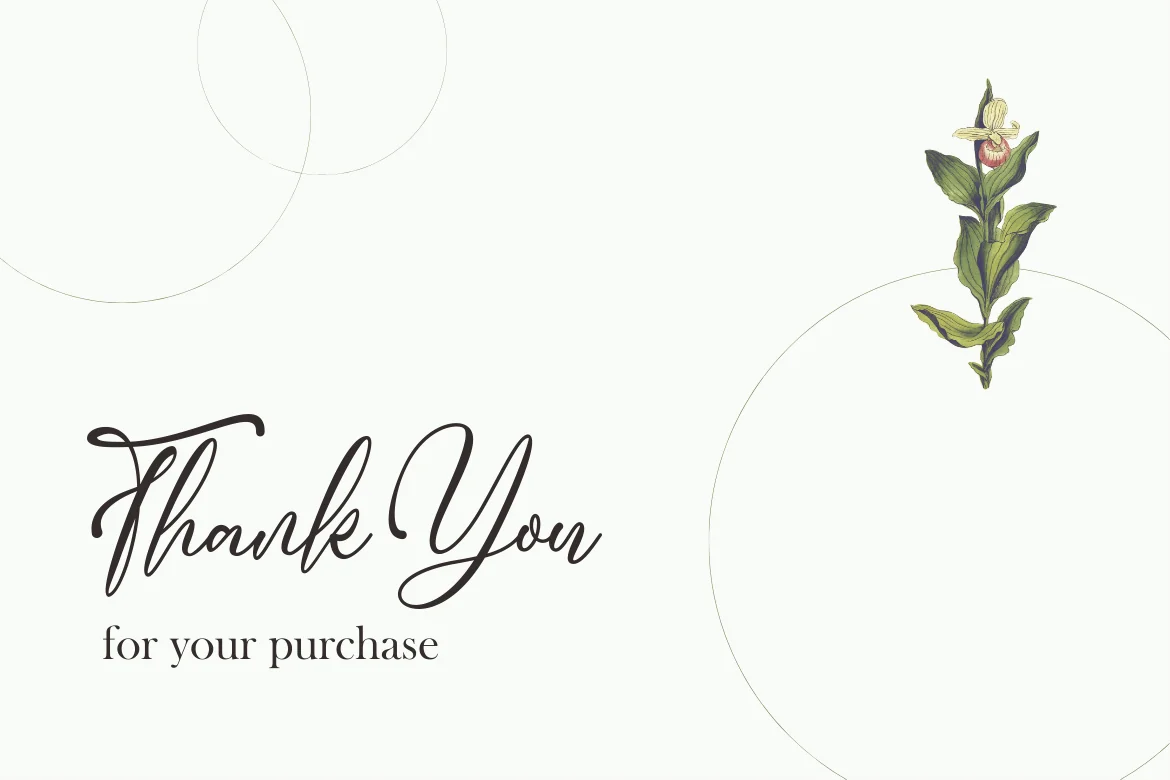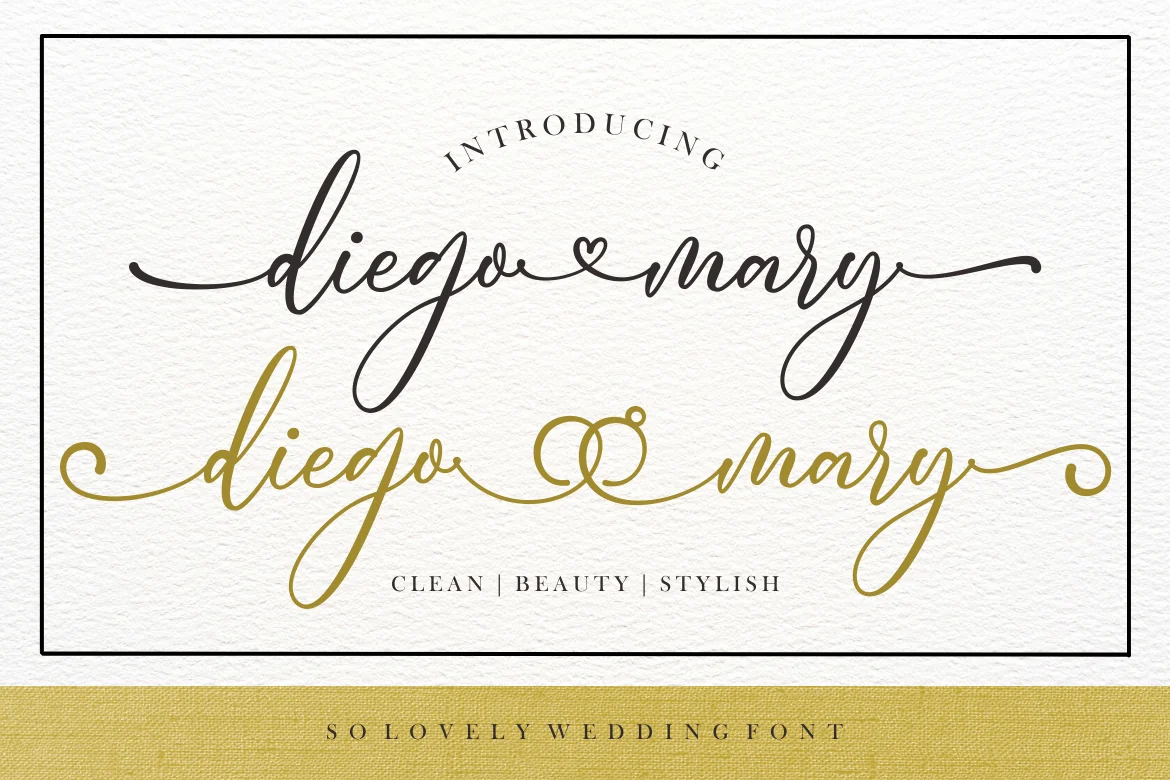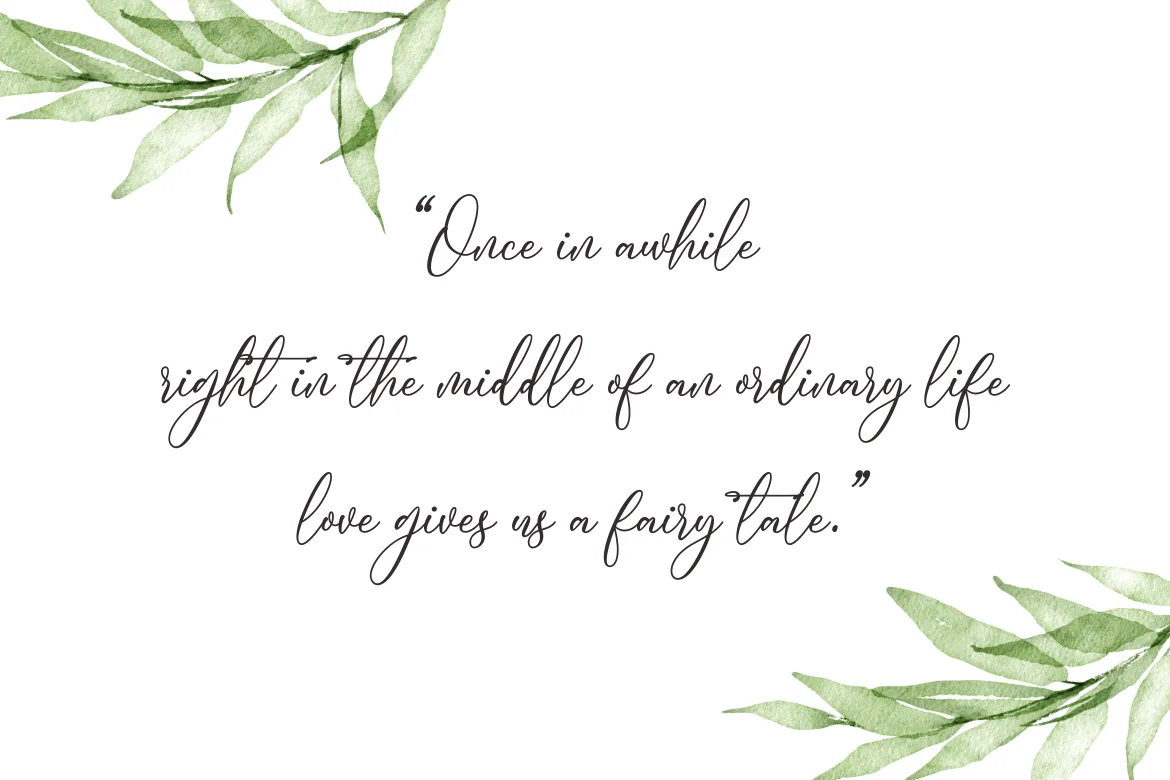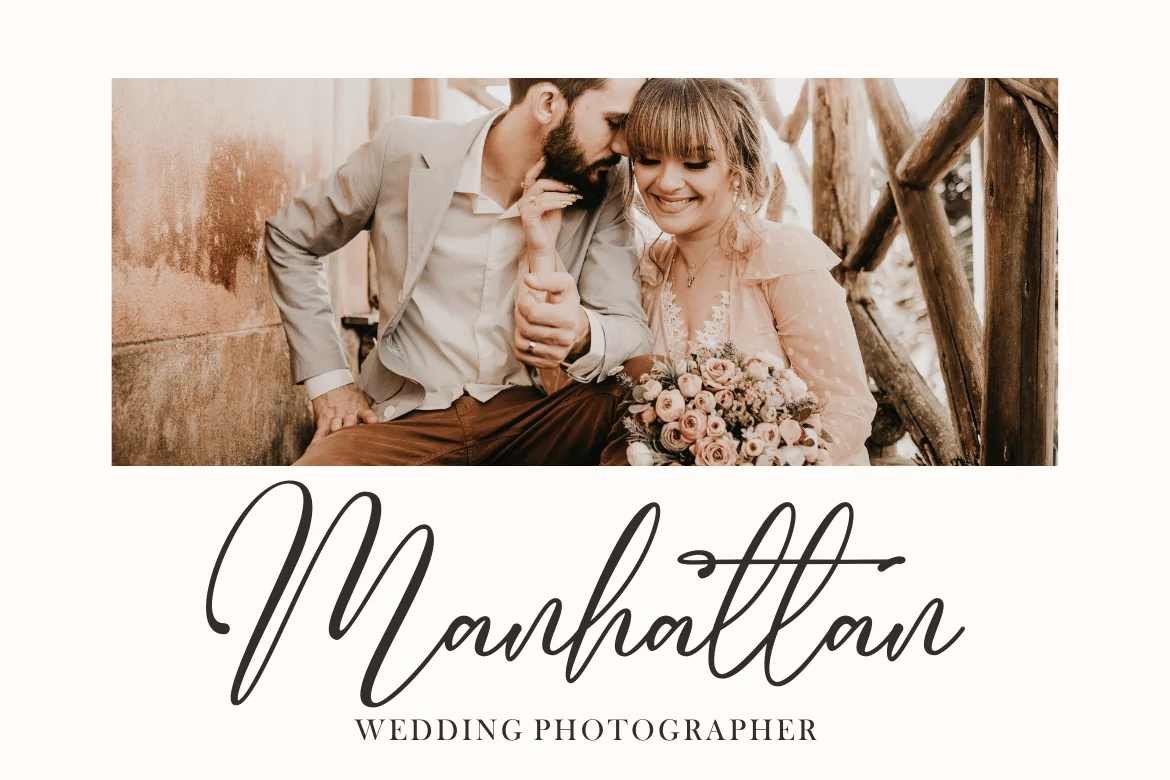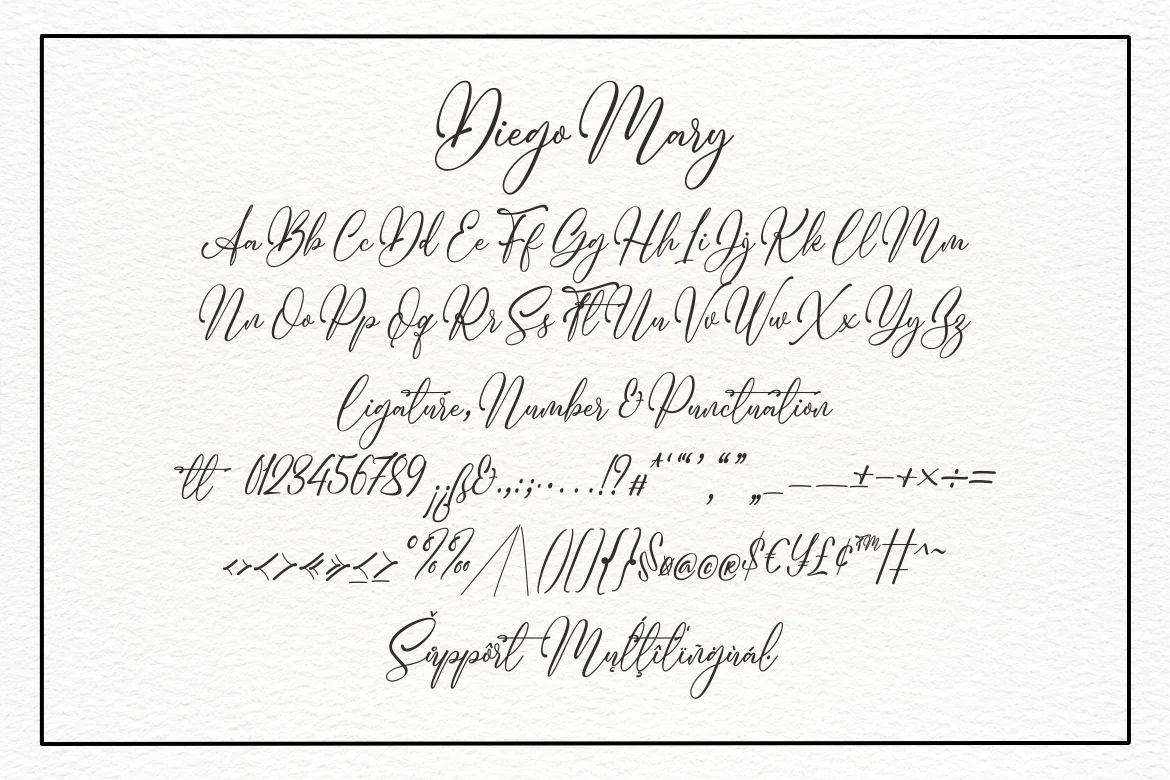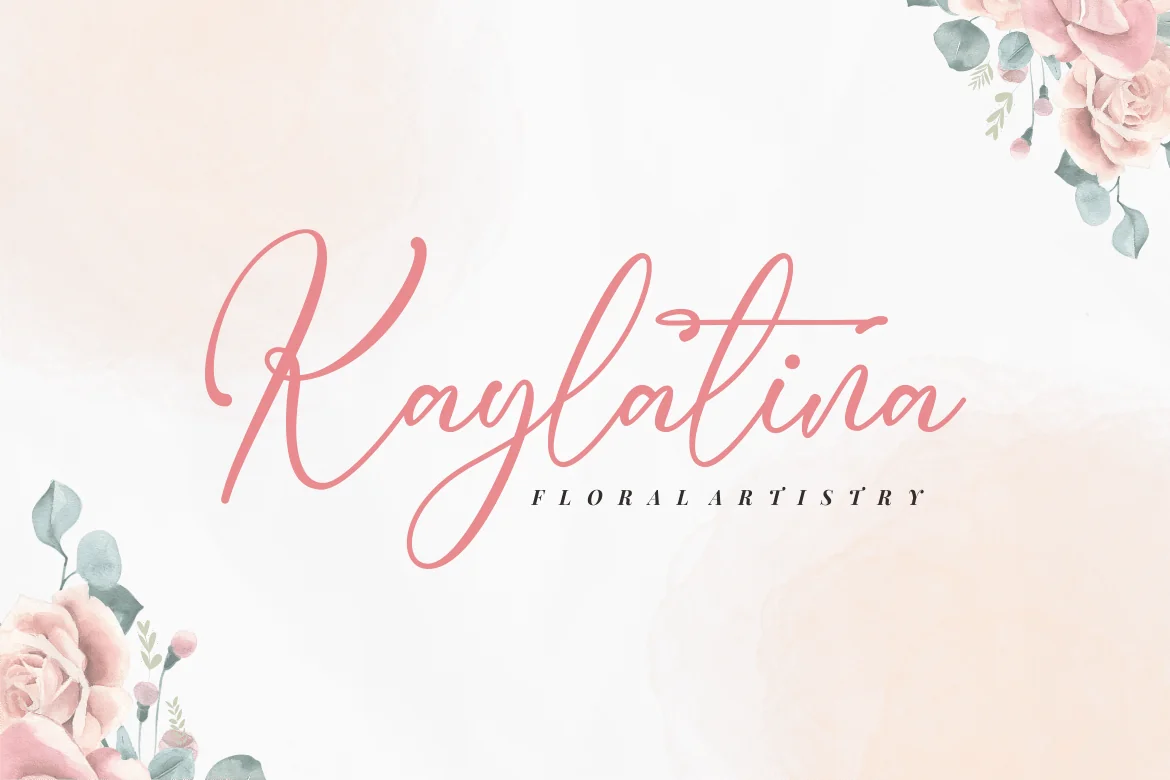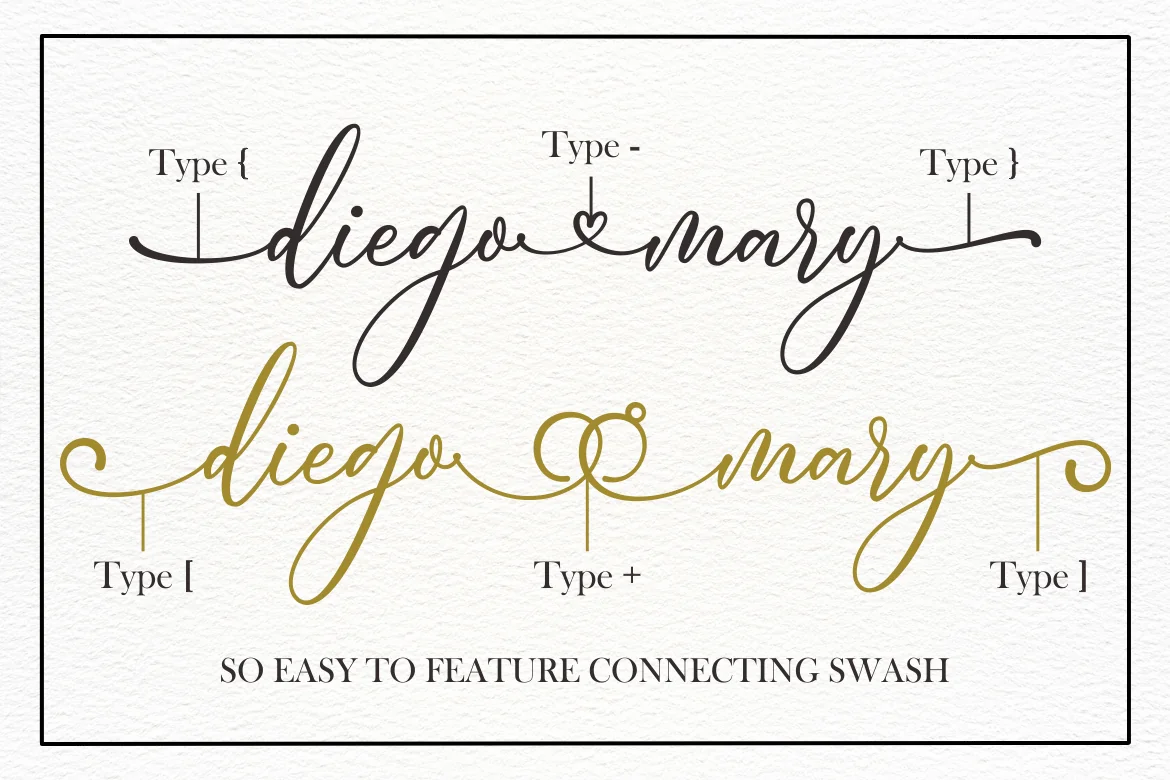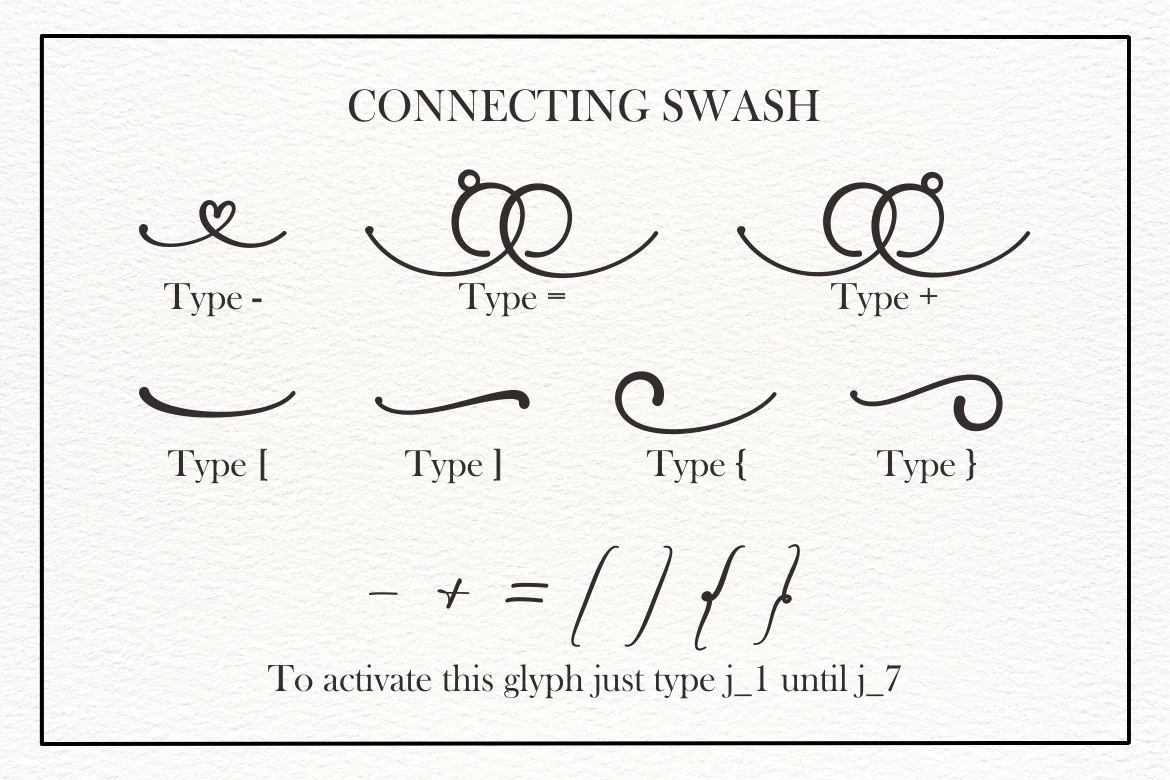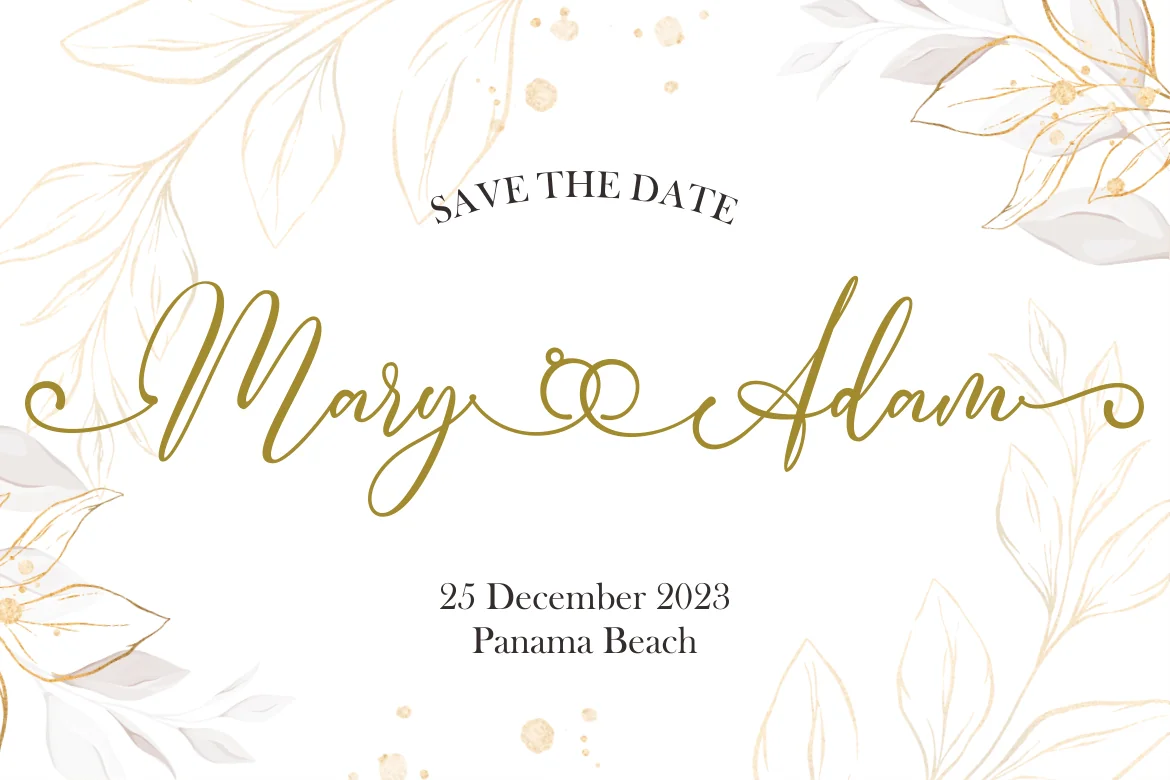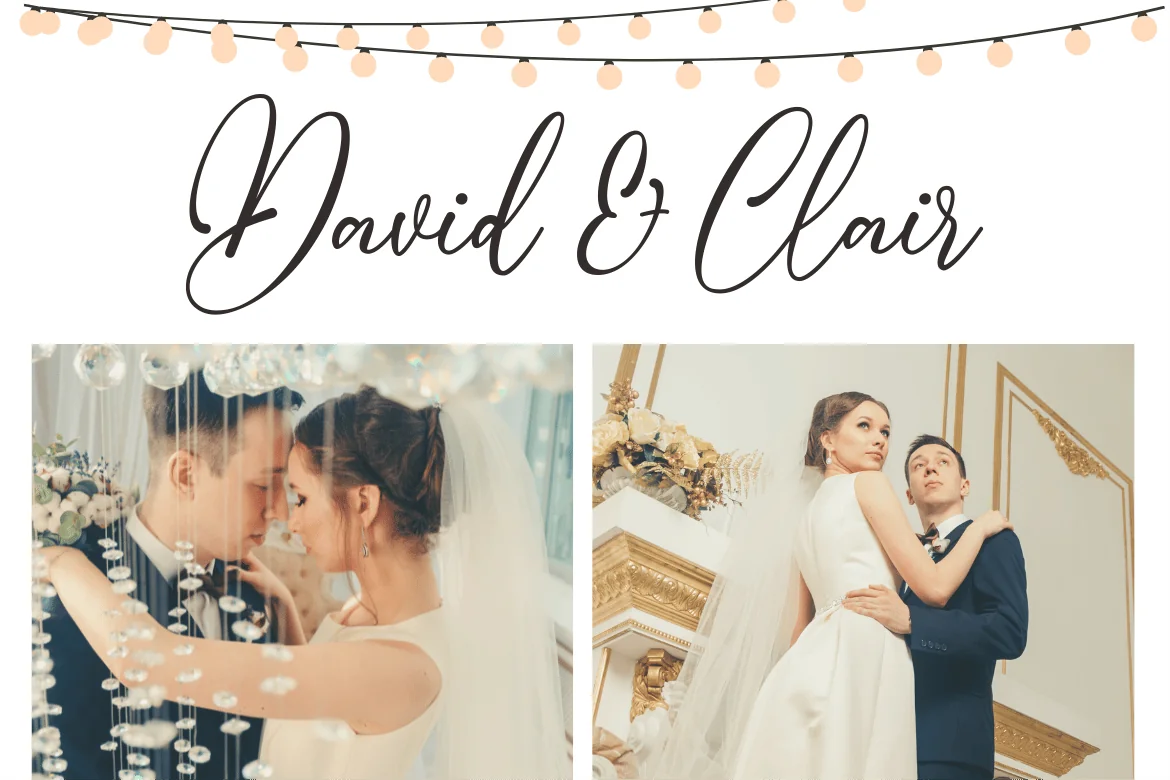
Diego Mary A Wedding Font
Introducing, Diego Mary is a stylish and elegant script font suitable for your design project needs, such as; wedding themes, social media posts, valentines themes, quotes, overlays on images, tagline logos, posters, print needs, website banners, and more.
- A set of uppercase and lowercase glyphs
- Number, symbol, and punctuation
- Some Swashes and Ligatures
So Easy to Use
Access Swashes by keyboard
- key bracketleft ‘ [ ‘ to feature beginning swash 1
- key braceleft ‘ { ‘ to feature beginning swash 2
- key minus ‘ – ‘ to feature middle swash 1
- key plus ‘ + ‘ to feature middle swash 2
- key equal ‘ = ‘ to feature middle swash 3
- key bracketright ‘ ] ‘ to feature ending swash 1
- key braceright ‘ } ‘ to feature ending swash 2
For Example: type [diego+mary]